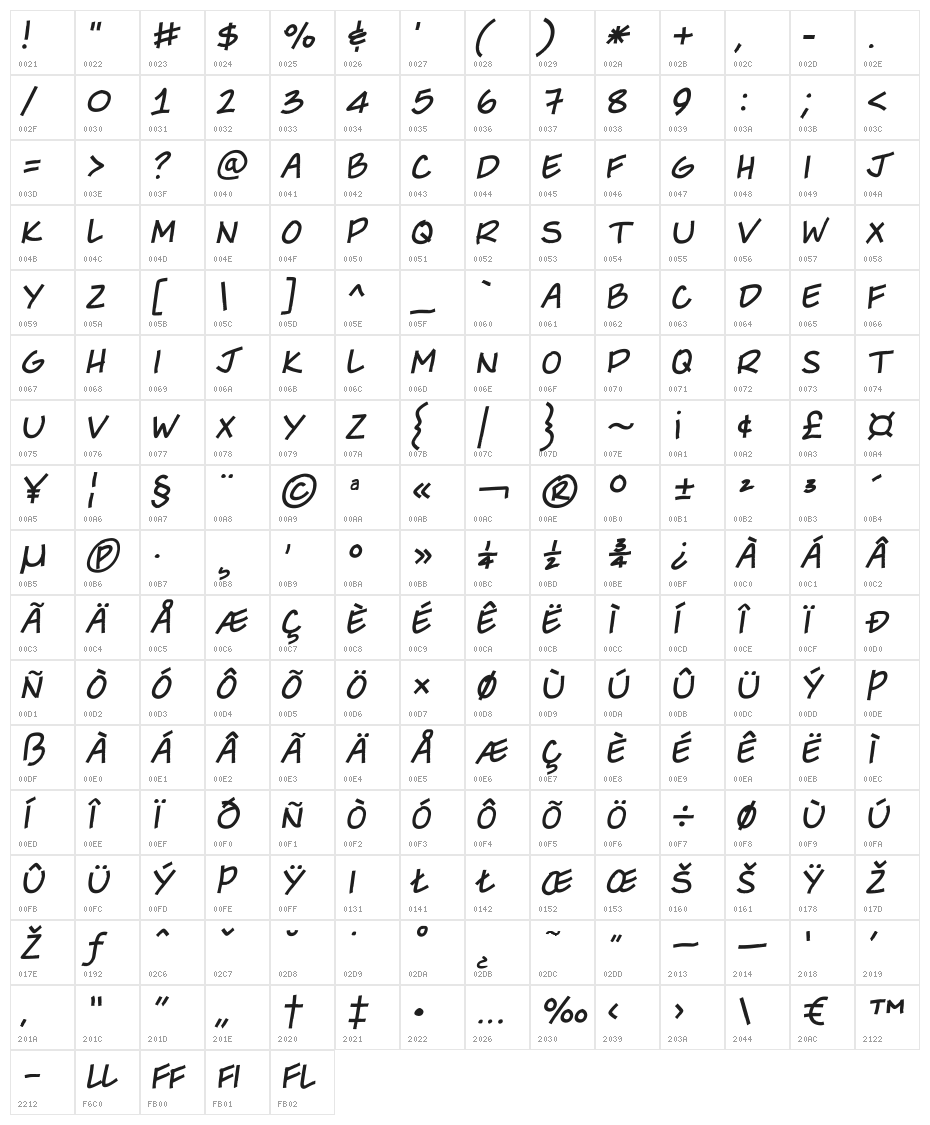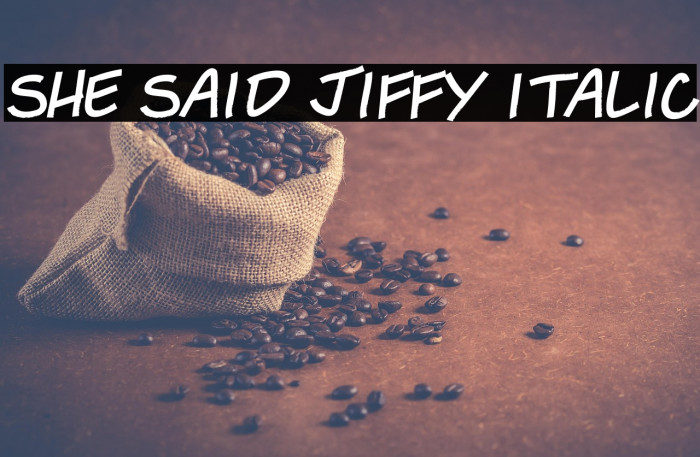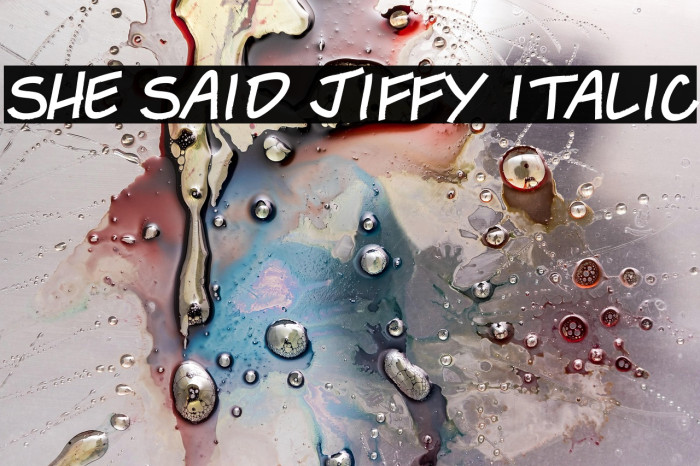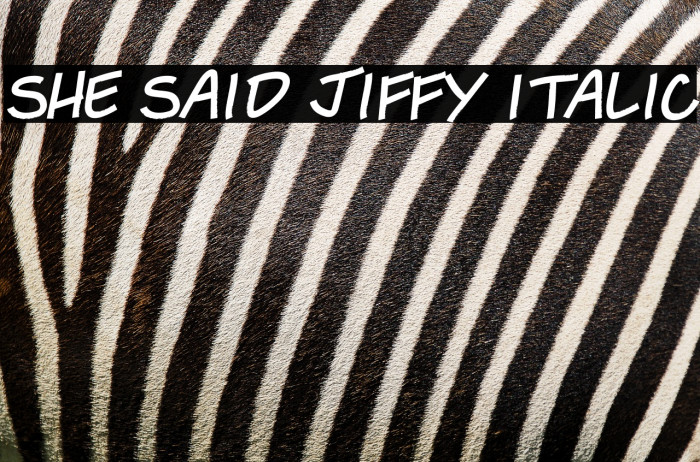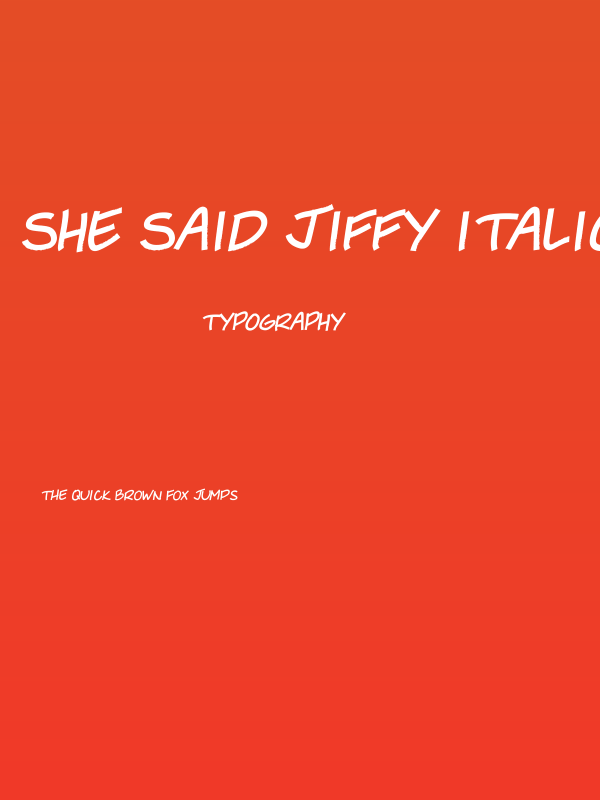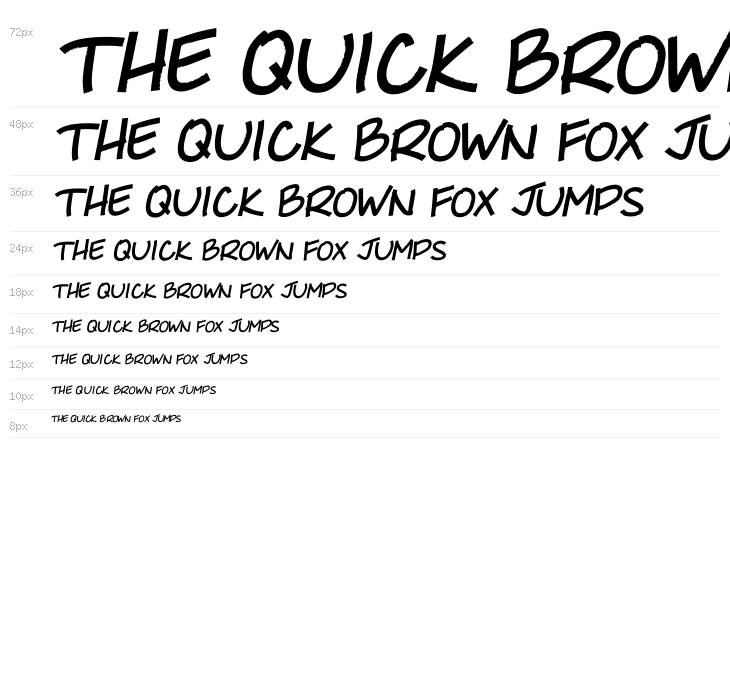
She Said Jiffy Italic Font
She Said Jiffy Italic Description
This font features a dynamic and energetic style with a handwritten appearance. The letters are slanted, giving it an italicized look, which adds a sense of movement and fluidity. The strokes are bold and slightly irregular, mimicking the natural flow of handwriting. The uppercase and lowercase letters maintain a consistent style, with rounded edges and a playful character. Numbers and special characters are designed to match the overall aesthetic, ensuring a cohesive look across all text elements. This font is ideal for projects that require a personal touch or a casual, informal vibe.